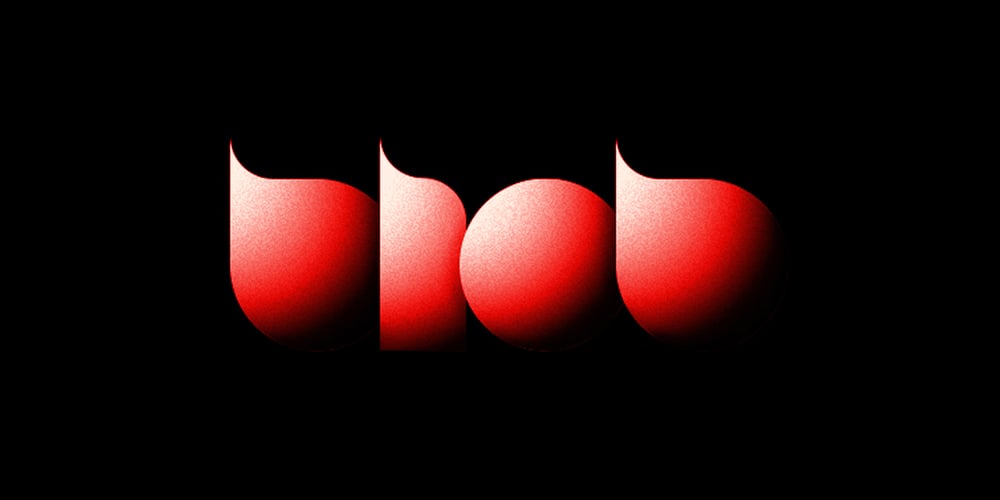
Blob
Blob font
Blob Font Family was designed by published by Superfried. Blob contains 2 styles and family package options. Blob, designed by Superfried, is available in two formats Round and Square. It is an experimental, sans-serif display typeface based on simple geometric shapes. Although unorthodox, care has been taken to ensure that it is completely legible. Blob has been featured on the Behance curated typographic gallery TypographyServed.com.